Ligatures
Ligatures are a feature of fonts where a specified sequence of characters is recognized and replaced with a single new character that you design. Ligatures can have any sequence of two or more characters. In a text editing program that has ligatures enabled, this sequence of characters is recognized, then replaced with the custom ligature character that you design.
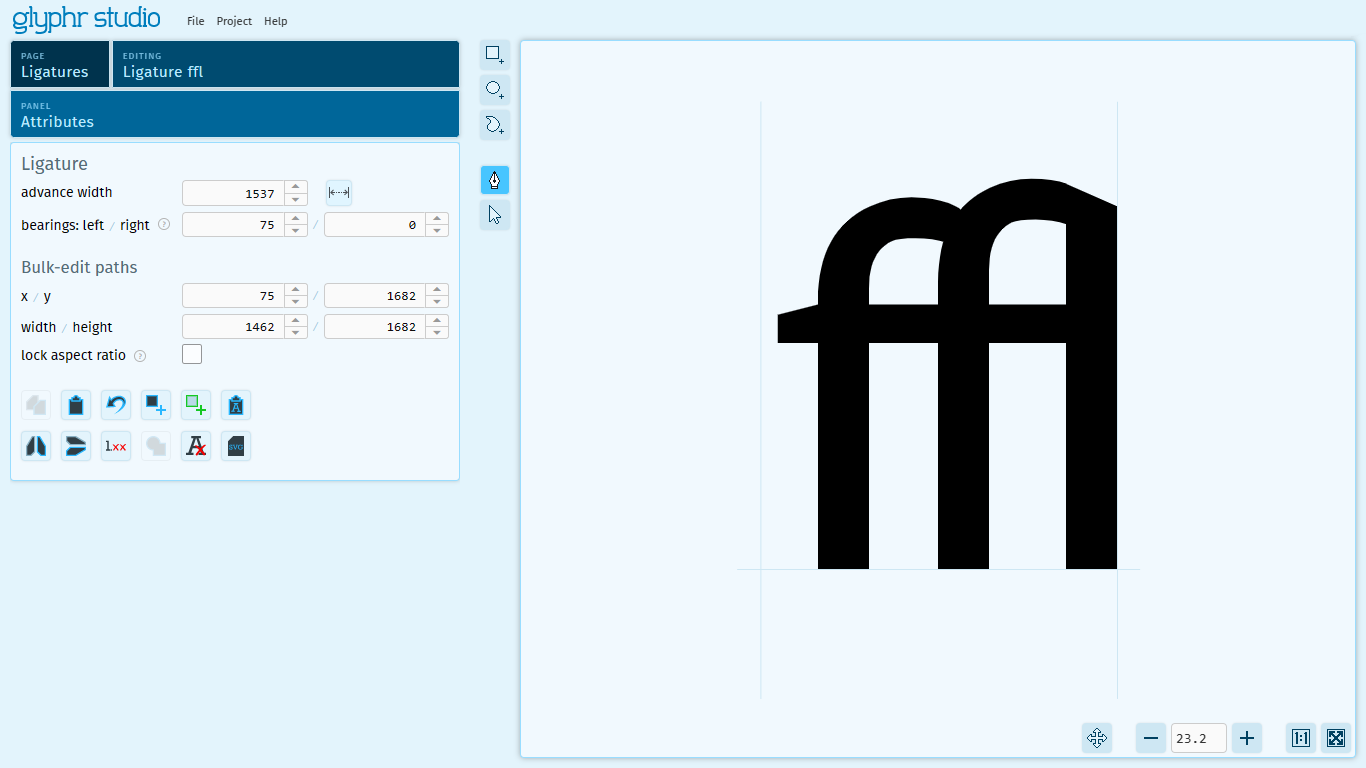
Ligatures are a Glyph data type - they are a feature of fonts where a specified sequence of characters is recognized and replaced with a single new character that you design.
Some common Latin ligatures have an assigned Unicode code point (so, some Ligatures are Unicode Characters). But, Ligatures can be defined by any sequence of two or more characters. In a text editing program that has ligatures enabled, this sequence of characters is recognized, then replaced with the custom ligature character that you design. These custom Ligature characters are part of a font file, but they do not have an associated Unicode code point (some Ligatures are not Unicode Characters).
Note about ligature characters and their source characters
Source characters must be below U+FFFF
Unicode characters above the Basic Multilingual Plane (above U+FFFF) are sometimes interpreted as a sequence of two characters, even though they have a single code point. In Glyphr Studio, this confuses how we define a Ligature. Specifying characters above U+FFFF is not allowed, as it causes unexpected behavior.
Source characters must exist in the project
Within the font file, Ligature characters are saved as a type of character that references two or more other characters in the font. Taking ffi as an example - usually you would design the f character and the i character, as well as create a Ligature for ffi, defined as f f i. In this case, the font has entries for all the 'source' characters in the ligature.
You could, though, create a ligature for ffi without designing the individual f character. But, the missing f character would cause an error in the resulting font, because the ligature has nothing to reference. In this case, Glyphr Studio will create the f character for you to avoid this error. On export, for all of these 'missing source characters', a new character will be added to your project. This added character won't have any shapes or advance width, but it will be exported to your font file.
Common use cases
Traditional Latin
In Latin, there are some common ligatures that have been around for hundreds of years. These common ligatures are included in Unicode and have their own code point:
ae -> æ, AE -> Æ, ff -> ff, fi -> fi, fl -> fl, oe -> œ, OE -> Œ, st -> st, ffi -> ffi, ffl -> ffl
Cursive
If you are creating a font that has a cursive or handwritten feel to it, Ligatures may be able to help you customize how two specific letters are attached. As a warning, permutations can add up quickly: if you made a Ligature character for every lowercase letter pair, that's 676 Ligatures you have to design. It would probably be good to use a strategy where many of the characters connect at a common point (maybe around the baseline) and just use ligatures for edge cases. For example, lowercase o in cursive connects to the next letter somewhere between the baseline and the x height.
Abugidas
An abugida is a writing system where consonants and vowels are written as a single letter. If you are developing your own Constructed Language (conlang) and want to have a font to use for you abugida-based writing system, then Ligatures are probably right for you.
Using Latin as an example, it would be like being able to type n and ~ together, then have them automatically form a ñ.
In this system you would need (number of consonants) x (number of vowels) amount of Ligature characters... again, this could result in a very large set of Ligatures you need to design. This could be lessened if the base consonants were designed as stand-alone characters first, they could easily be added to many other Ligatures as Components.
Another strategy for creating an Abugida font may not leverage Ligatures. If your vowels have the same position no matter what it's base consonant looks like, then you could choose either all your vowels or all your consonants to have zero advance width. This means whatever character is typed next would be placed "over" the first character. The advantage of this system would be having to avoid having to create ligature characters for every single permutation, at the cost of not being able to place glyph elements in custom locations.